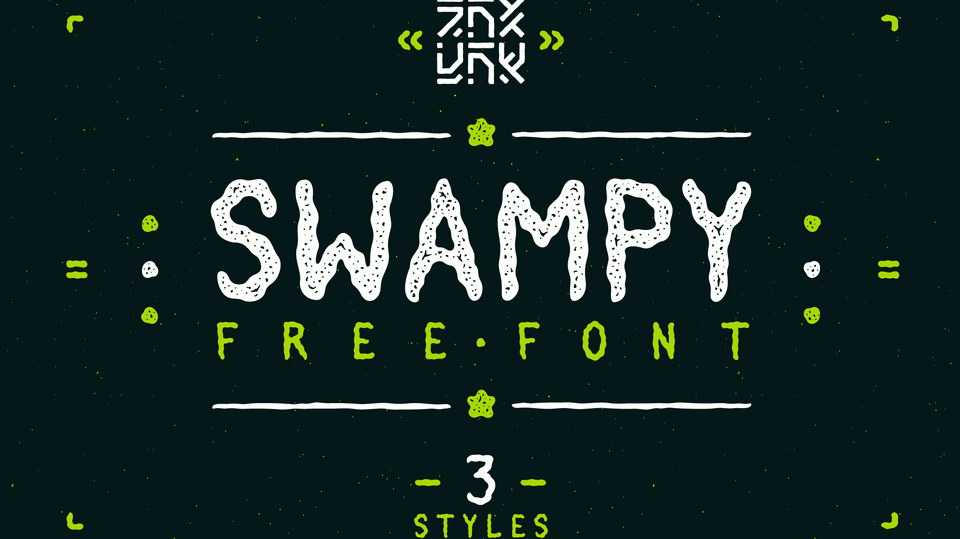
Download Swampy font, a cool handcrafted typeface in 3 styles: Clean, Dirt and Sand with Cyrillic support. Swampy font is perfect for crafts, logos, branding, posters, headlines, t-shirts and apparel, packaging and more.
Designer: 2DFUNS Studio